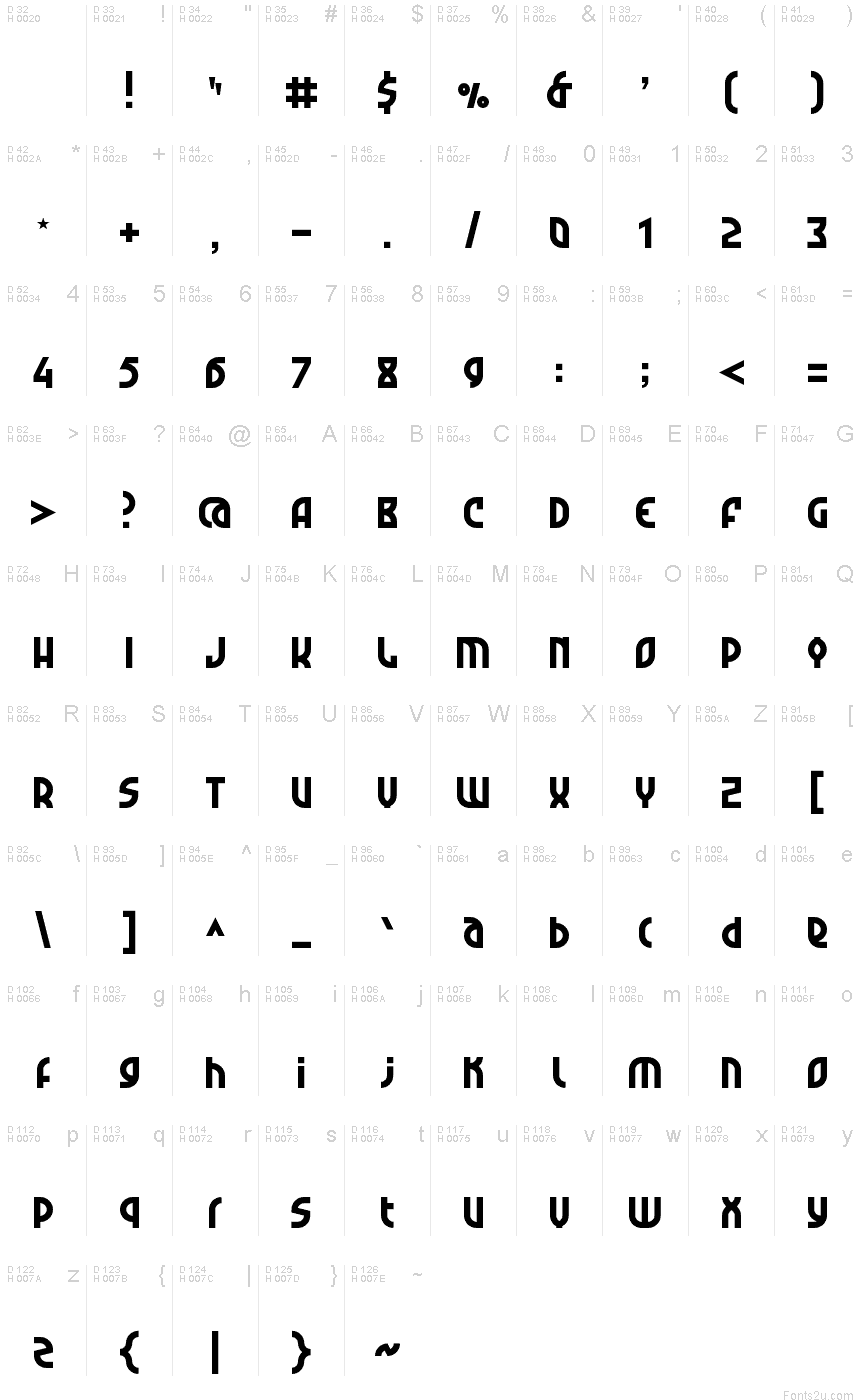
Garage Garbage by architaraz of FontStruct is a free decorative display font with massive, tightly fitted letters and a blunt industrial silhouette. Rounded arches meet hard rectangular cuts, and several forms lock together like parts of a fabricated sign.
Posters are its strongest territory, especially for underground music, streetwear launches, or experimental events. It also suits album covers and merchandise. The compressed forms make the lettering itself resemble a dense piece of industrial graphics, linking those uses to mechanical and urban themes.
Garage Garbage